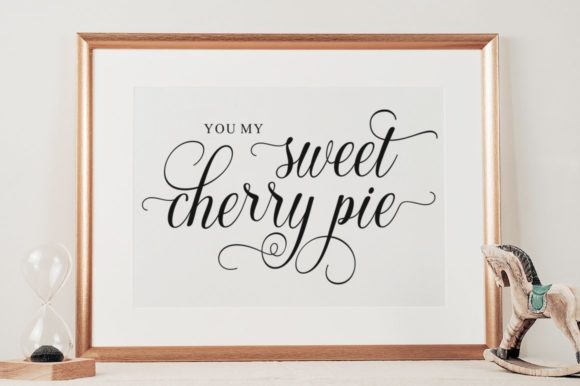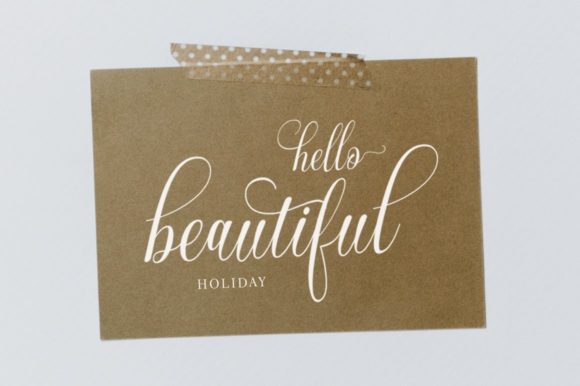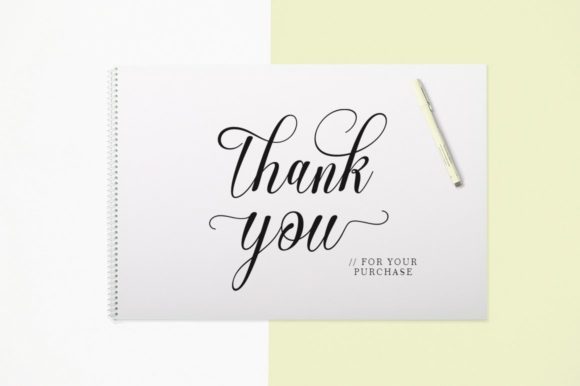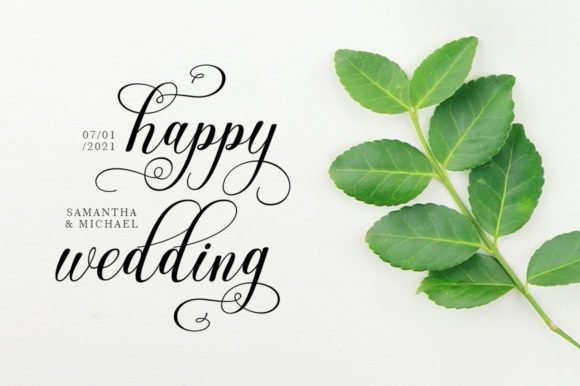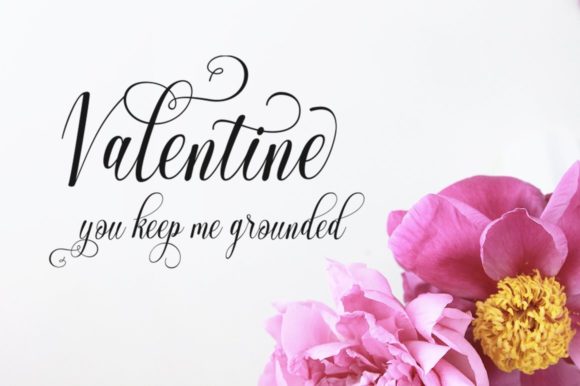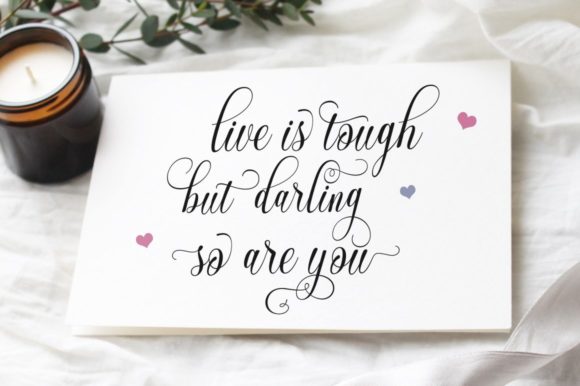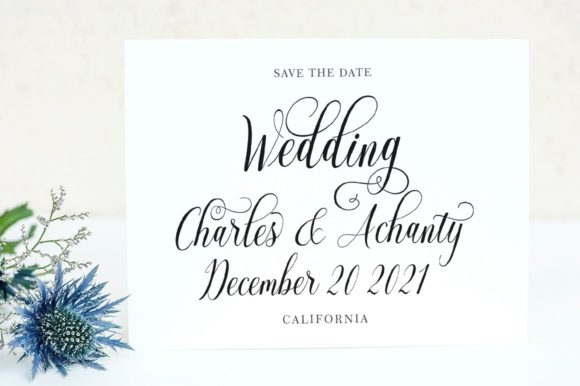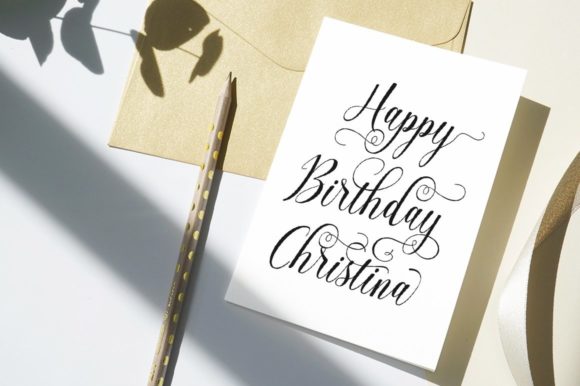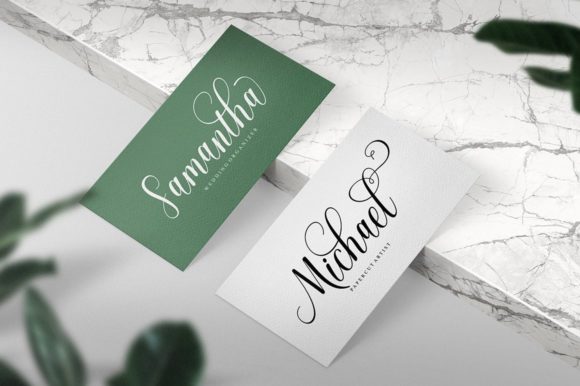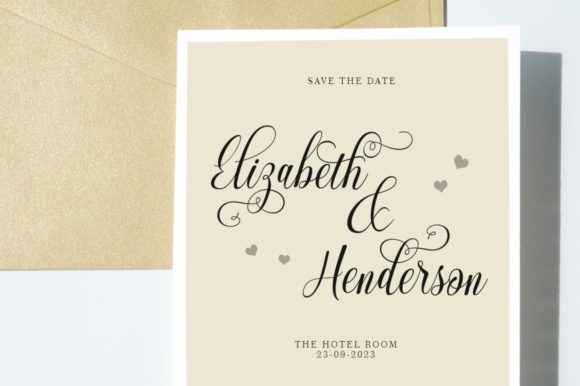
Perchaya Script Font
About Perchaya Script Font
Perchaya Script is an enchanting handwritten font. This versatile script font has a wide spectrum of applications ranging from greeting cards to headlines.
Perchaya Script is PUA encoded which means you can access all of the glyphs and swashes with ease!